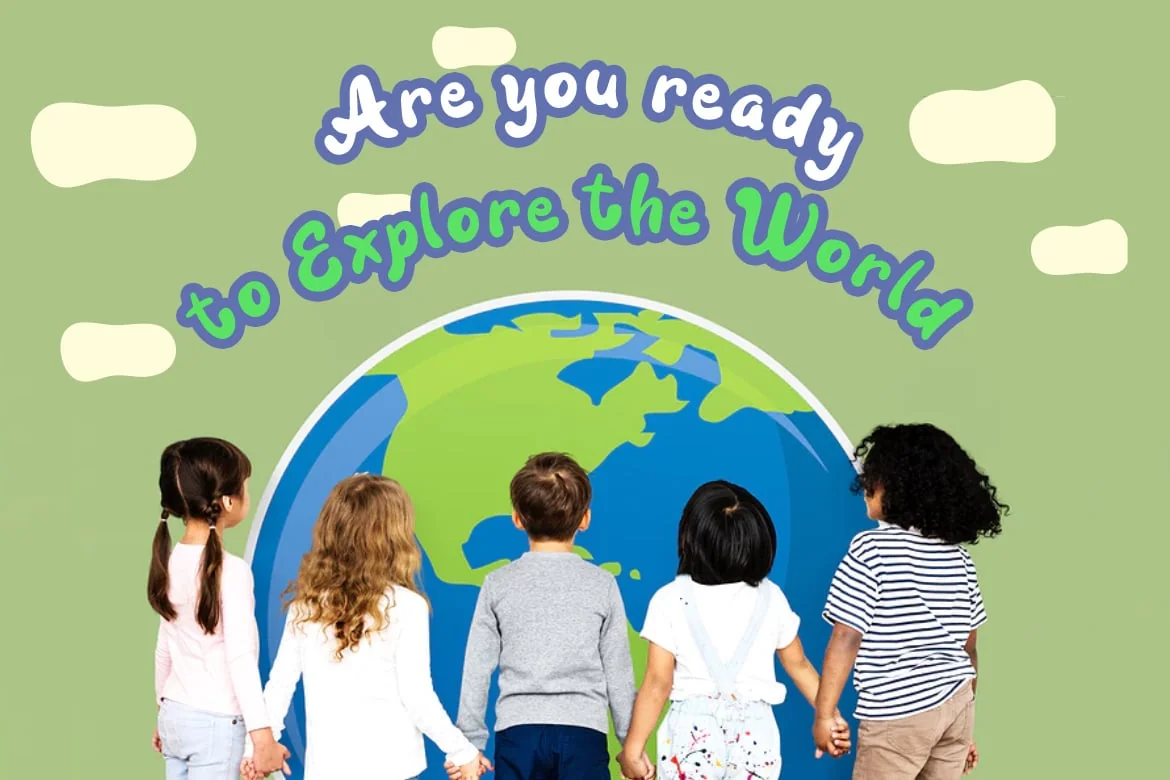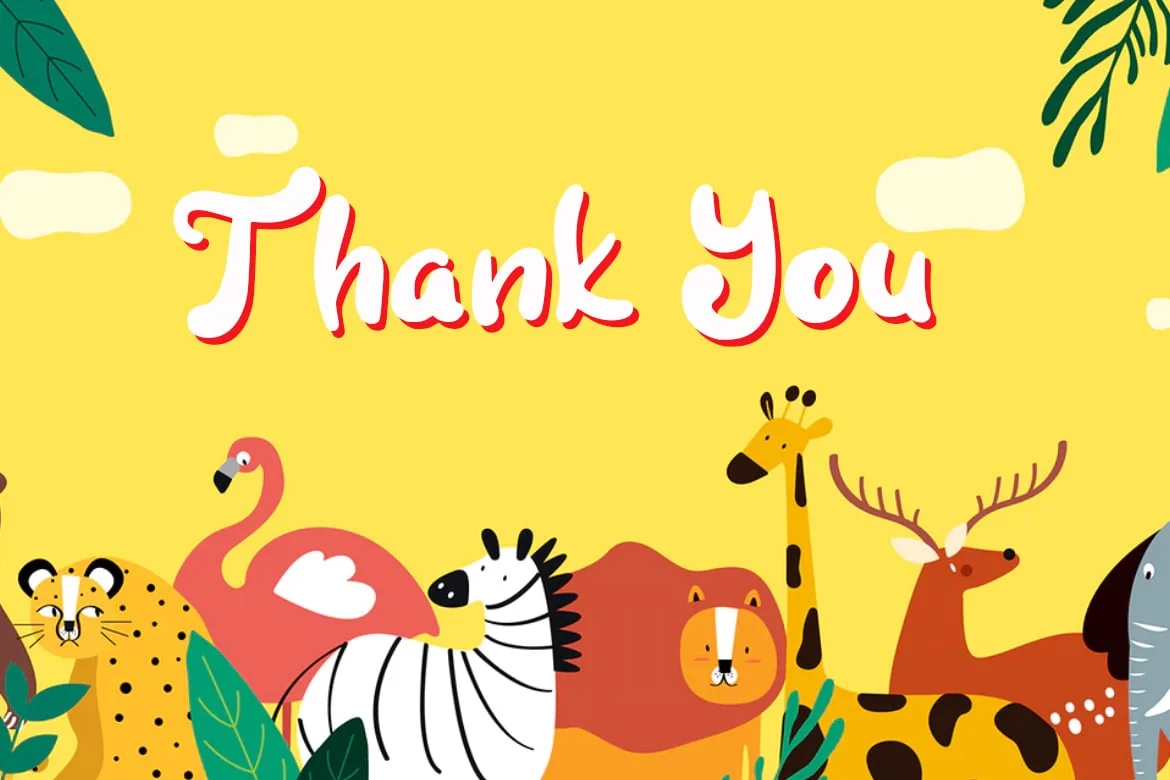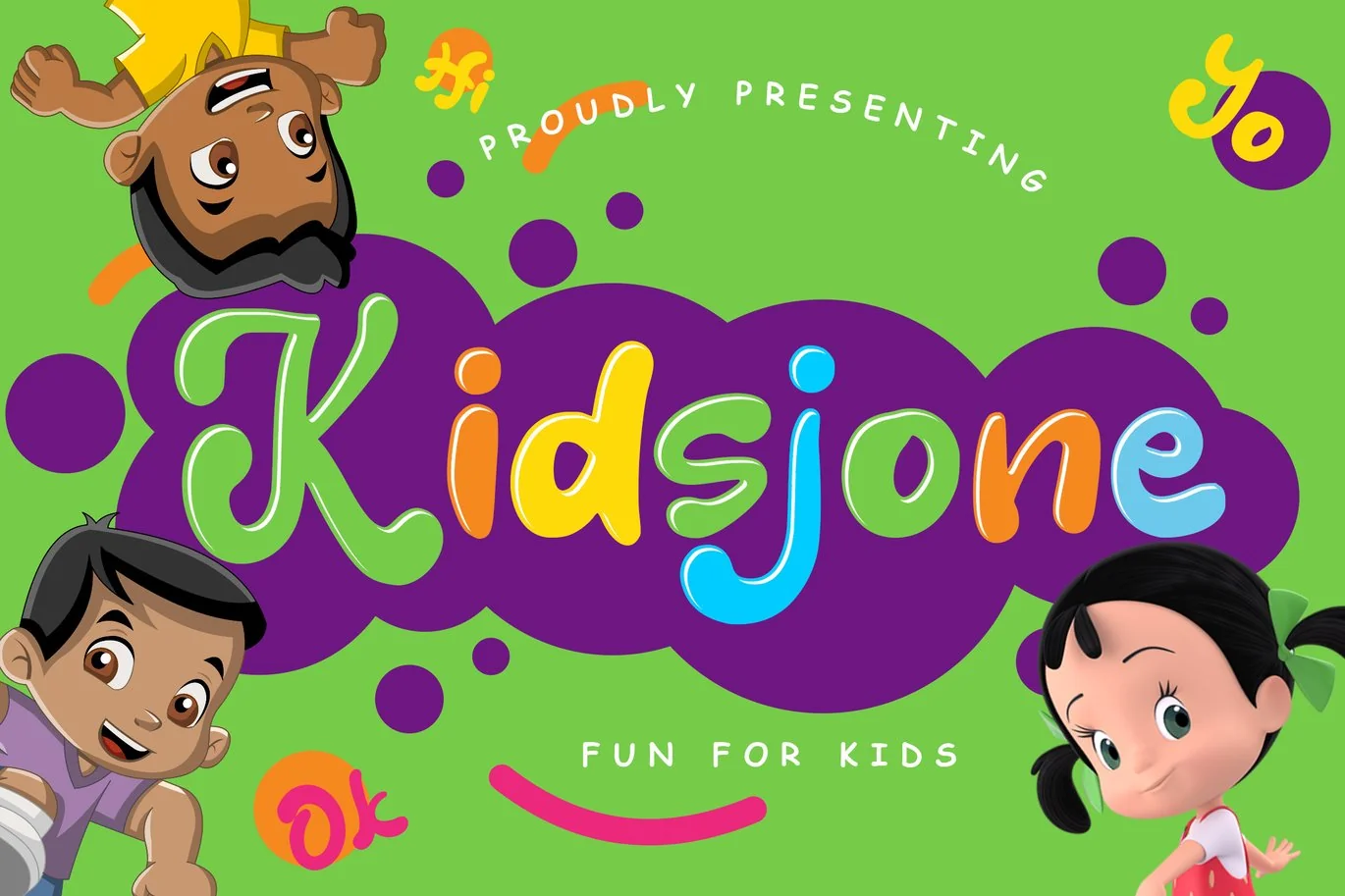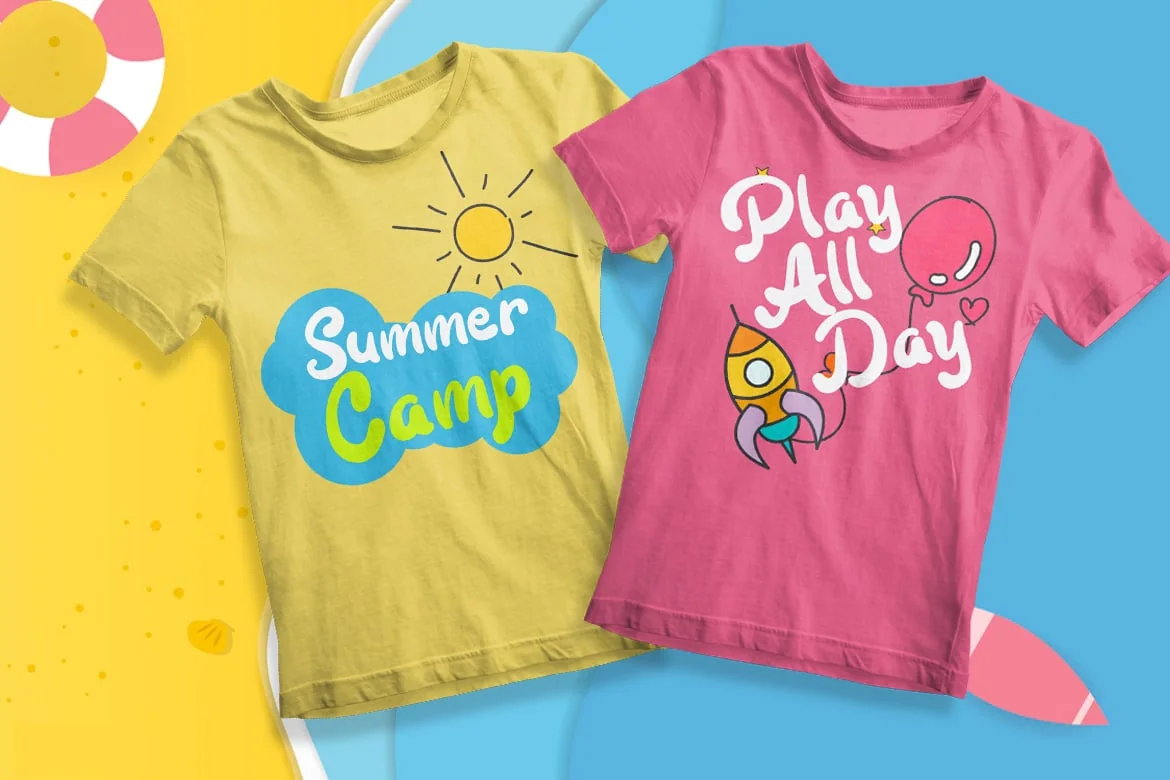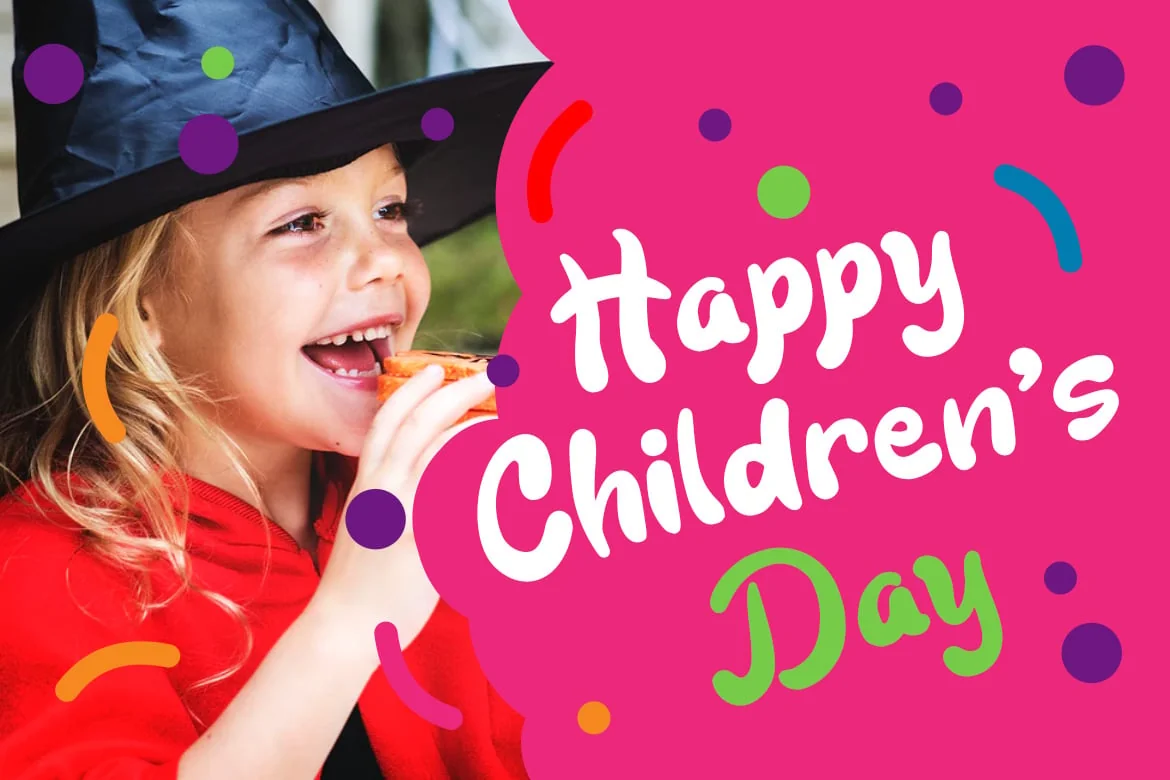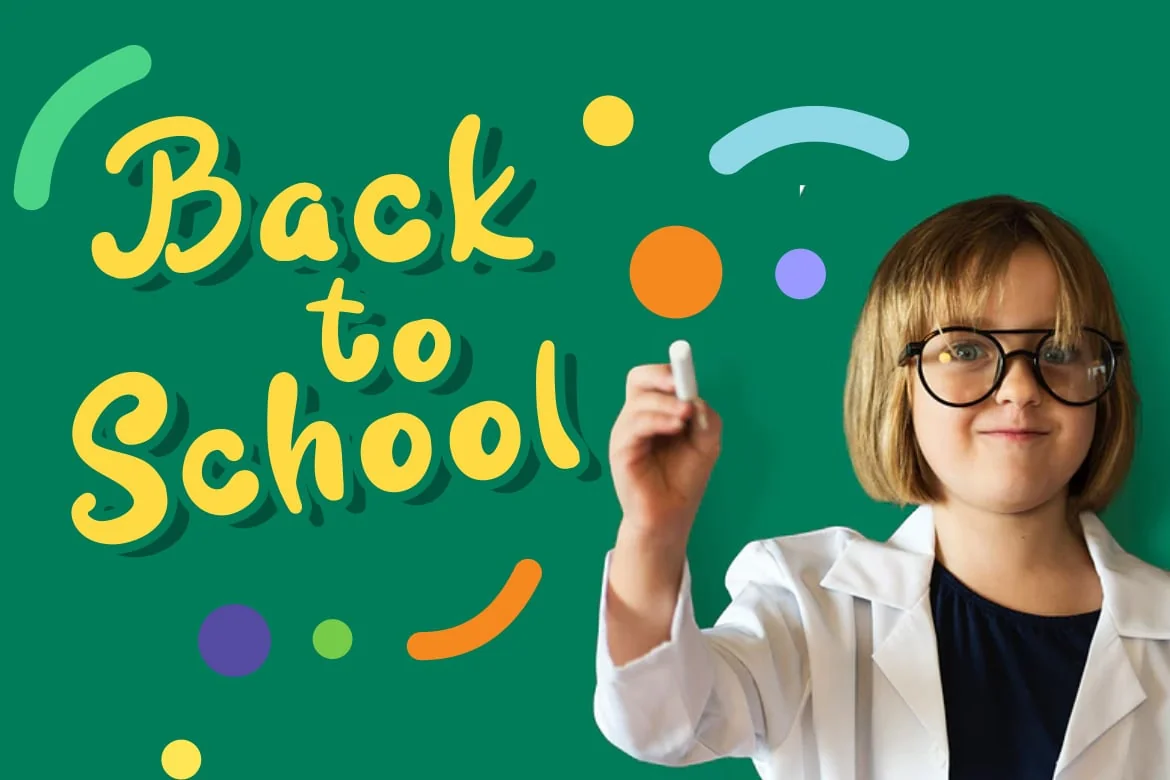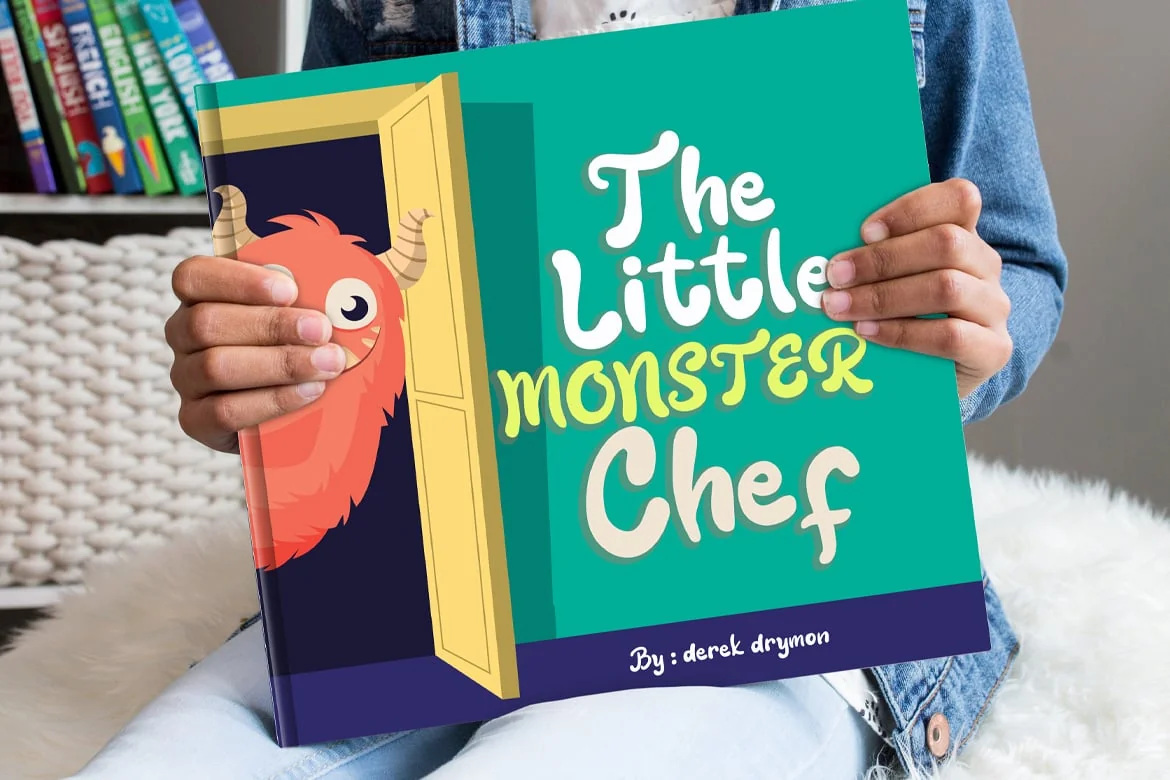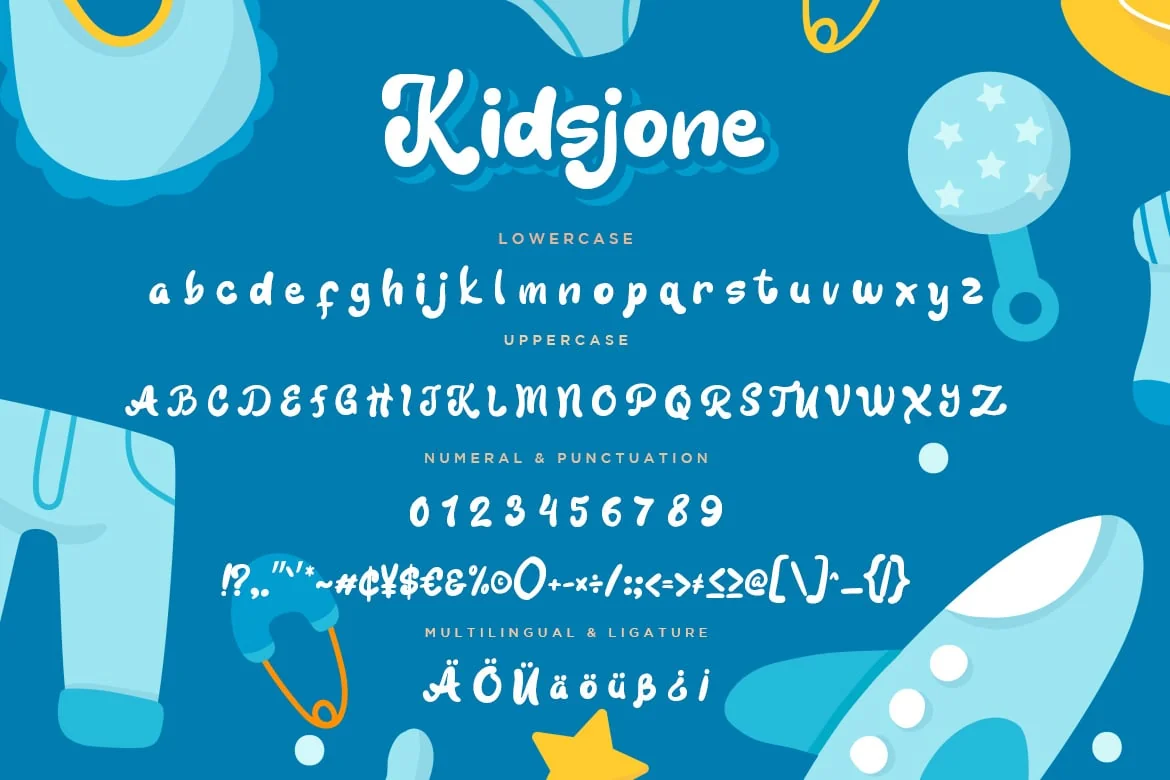
Kidsjone Fun Advertisement Font
Kidsjone is sans serif fun font for kids event needs which suits for poster, flyer and brochure.
Kidsjone is perfect for branding projects, logo, wedding designs, social media posts, advertisements, product packaging, product designs, label, photography, watermark, invitation, stationery and any projects that need handwriting taste.
- Fonts include multilingual support for; ä ö ü Ä Ö Ü ß ¿ ¡